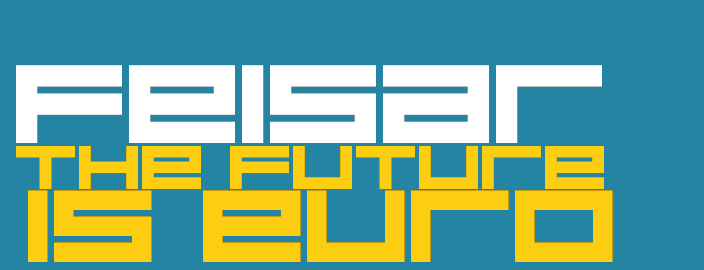
Font name: | Feisar |
Author: | NathanCaldecott |
Note by NathanCaldecott | |
"Here is a font based on the logo and slogan 'The Future Is Euro' for Feisar, a team in the Wipeout series. The fonts feature the lower-case alphabet, and where examples are not provided, I've done my best to stick to the 'rules' of the letter structure. Included in the package: -A Promotional Poster showcasing the font -Font -Example Logo Graphic -Team Colours Graphic" Made in 2009. |